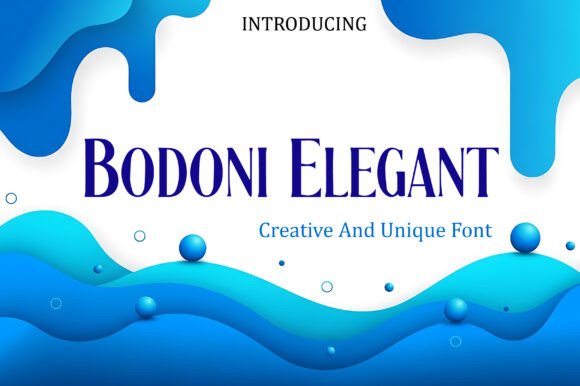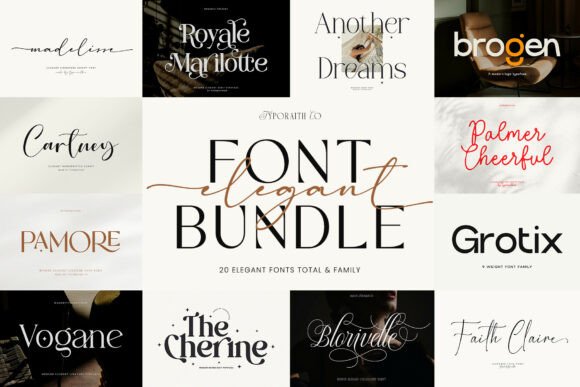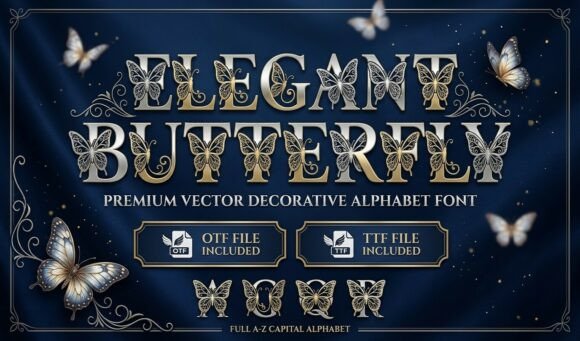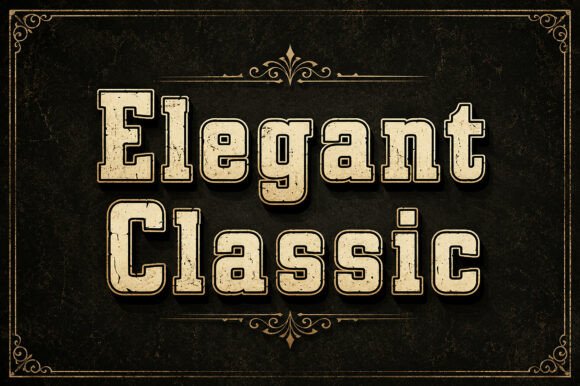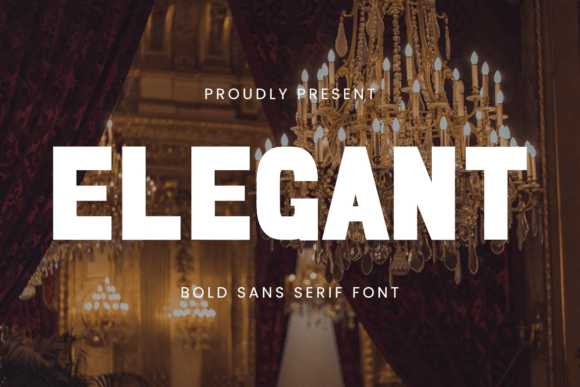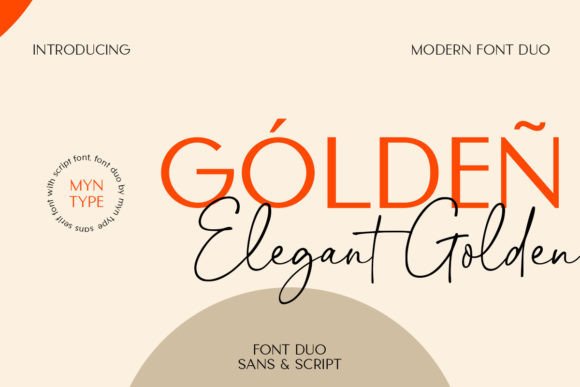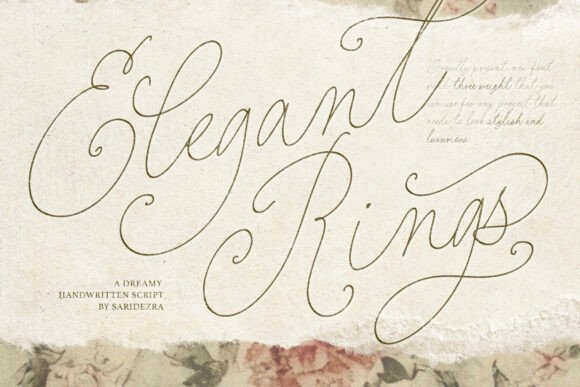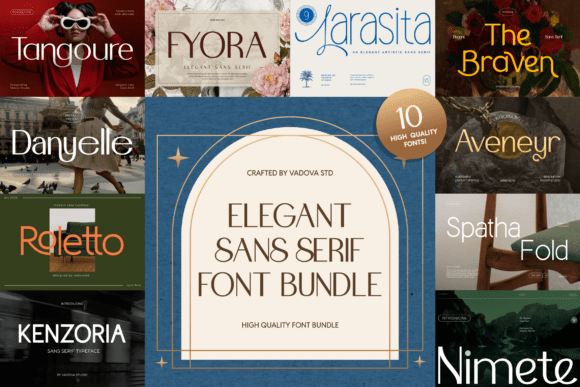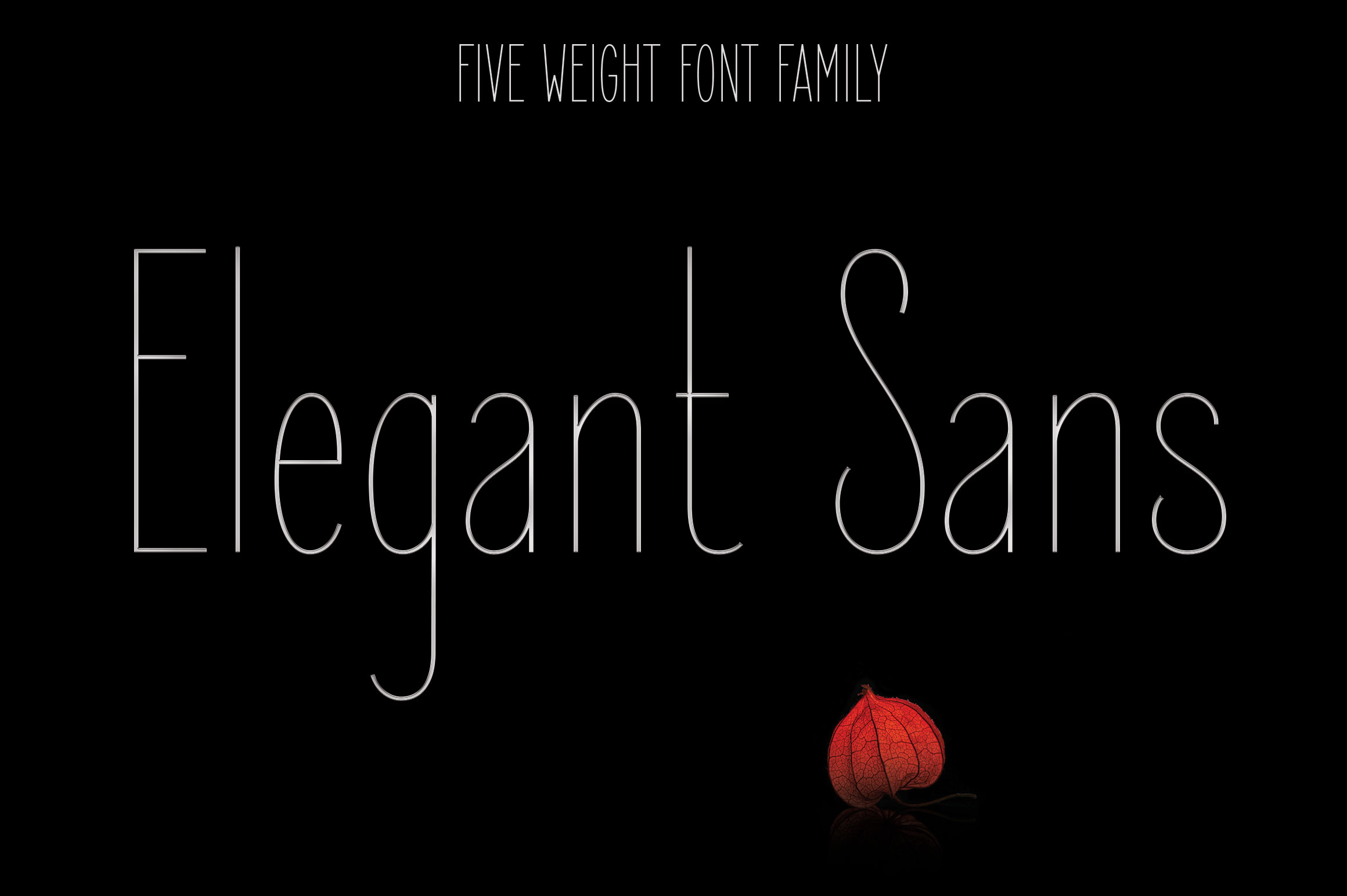
50+ Best Elegant Fonts for Branding & Logos (2026)
An elegant font is one of the fastest ways to make a logo, product label, or invitation feel instantly more premium. But “elegant” covers a lot of ground, from razor-thin serif headlines to soft, condensed sans serifs to romantic scripts, and picking the wrong style for the job is a common branding mistake. This guide breaks down the best elegant fonts by category, explains where each style actually works best, and links out to our full serif and script collections if you want more range.
Quick Picks
| Best Overall | Elegant Sans — a slim, 5-weight family that works for almost any brand |
| Best for Logos | Elegant Golden Duo — a ready-matched sans + script pairing |
| Best Value | Elegant Bundle (20 Fonts) — script, serif, and sans in one purchase |
| Best Accent | Elegant Swirl Dividers — ornamental flourishes to frame a headline |
Why Font Choice Matters for a Brand
Typography is doing more work than most people give it credit for. Before anyone reads a single word, the shape of your letters has already signaled whether a brand feels modern or traditional, playful or serious, budget or premium. A thin, high-contrast serif reads as luxury within a fraction of a second; a rounded sans serif reads as friendly and approachable in that same instant. That’s why picking an “elegant” font isn’t just an aesthetic choice, it’s a positioning choice.
How to Pair Elegant Fonts
The safest formula is one expressive font paired with one quiet font: a script or serif display for headlines and names, and a clean sans serif for body copy and details. Keep the pairing to two font families per design; a third font usually adds clutter rather than polish. If you’re short on time, the Elegant Golden Duo below solves this for you by shipping a matched pair in one download.
Elegant Sans Serif & Display Fonts
These are built for clarity at a glance, ideal as the “quiet” half of a font pairing or as a standalone brand typeface for a modern, minimal identity.
1. Elegant Sans
Best for: Logos & Branding
A slim, condensed sans serif family in 5 weights with a luxury feel, perfect for modern minimalist branding.
2. Elegant Classic
Best for: Logos & Branding, Apparel & Merch
A bold vintage slab-serif display font with distressed, Western-inspired texture, great for logos, posters, and apparel.
3. Elegant Sans Serif Bundle
Best for: Editorial & Magazine, Logos & Branding
10 refined sans serif fonts in one bundle, built for luxury branding, editorial layouts, and fashion visuals.
4. Elegant Golden Duo
Best for: Branding & Logos
A ready-made pairing of a clean sans serif and a flowing script, ideal when you want a matched font duo without the guesswork.
5. Elegant Bundle (20 Fonts)
Best for: Packaging & Labels, Logos & Branding
A 20-font collection spanning script, serif, and sans serif styles, built for branding, packaging, and luxury logos in one purchase.
6. Elegant Swirl Dividers
Best for: Monograms & Initials
A dingbats set of ornamental swirls and flourishes, handy for underlining headlines or framing a monogram.
7. Elegant
Best for: Packaging & Labels, Logos & Branding
A bold, modern sans serif built for strong visual impact across branding, packaging, and social graphics.
Editor’s Picks: Serif & Script Favorites
Want more range? We’ve grouped the full serif and script collections into two dedicated guides below. Here are a few standouts from each to get you started.
Bodoni Elegant
Best for: Editorial & Magazine, Logos & Branding
Sharp needle-thin serifs against bold strokes, a striking pick for tech and editorial branding.
Grandeur
Best for: Editorial & Magazine, Logos & Branding
A quiet-luxury serif with high-contrast stems, made for upscale editorial and hospitality branding.
Elegant Rings
Best for: Logos & Branding, Beauty & Cosmetic Branding
A dreamy monoline script with soaring flourishes, perfect for fine art stationery and beauty branding.
Elegant Butterfly Monogram
Best for: Monograms & Initials
Serif capital letters intertwined with lacy butterfly silhouettes, striking as a standalone monogram or drop cap.
See the full breakdown in 24 Best Elegant Serif Fonts for Luxury Branding and Elegant Script & Monogram Fonts for Romantic Branding.
What makes a font look elegant?
Elegant fonts typically combine thin strokes, graceful curves, and generous spacing. Serif fonts lean classic and formal, scripts lean romantic, and clean sans serifs lean modern and minimal.
How many elegant fonts should I use in one design?
Two is the sweet spot: one expressive font for headlines and one simple font for body text and fine print. Three or more fonts almost always looks cluttered rather than curated.
Can I use elegant fonts for a business logo?
Yes, but pick one that stays legible at small sizes, since a logo often gets scaled down to a favicon or social media avatar. Test any font at 32px before committing to it as your primary logotype.